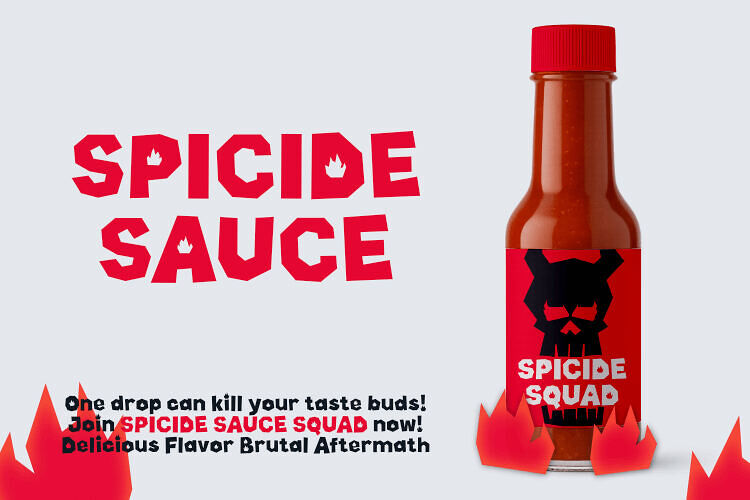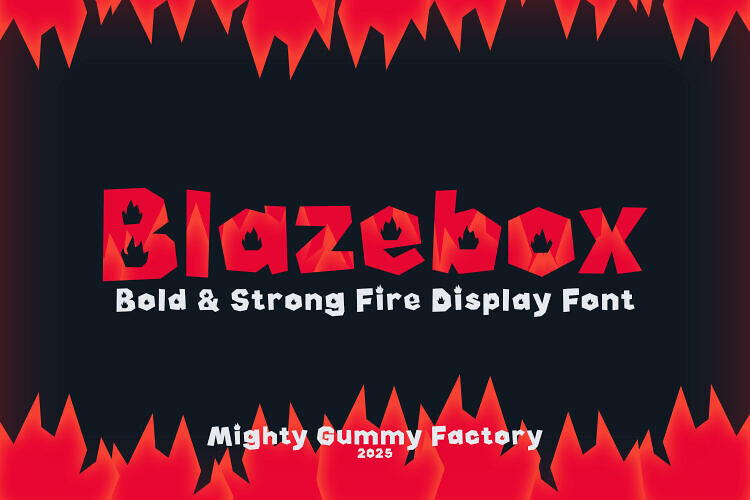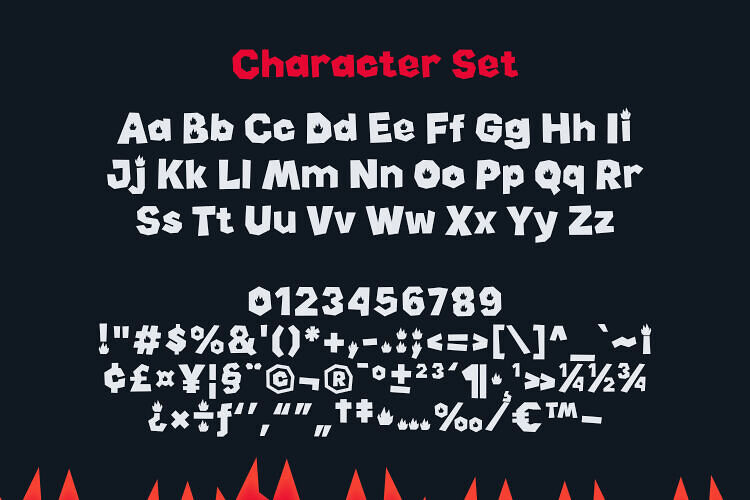
MGF Blazebox Font
Blazebox is a bold fire display font designed with flames inside each letter, giving it a fierce and energetic personality. Perfect for gaming logos, sports branding, festival posters, merchandise, YouTube graphics, and edgy design projects, this font instantly grabs attention with its fiery look.
Blazebox is a bold display font with fire elements inside the letters, creating a striking, high-energy look. Its sharp edges and flame motifs make it perfect for rebellious, adventurous, and explosive designs.
Ideal for gaming brands, eSports logos, music festivals, sports events, posters, merchandise, and edgy creative projects.